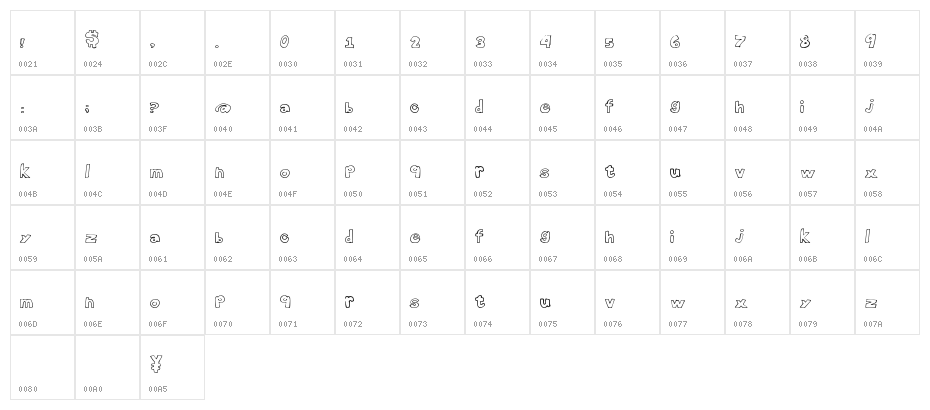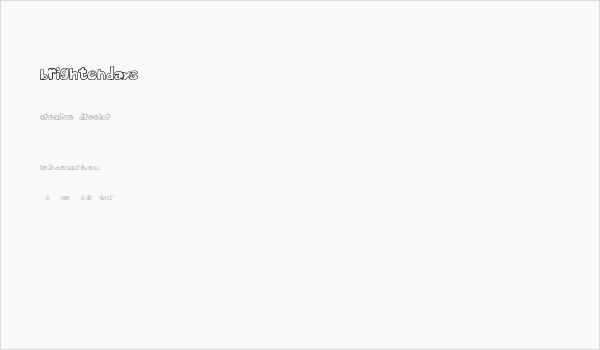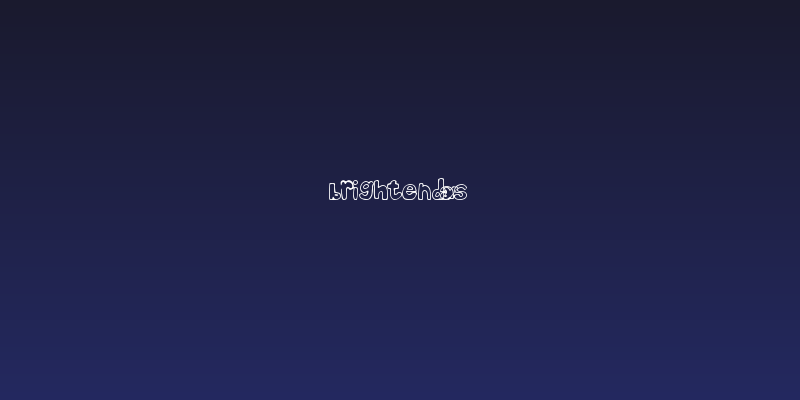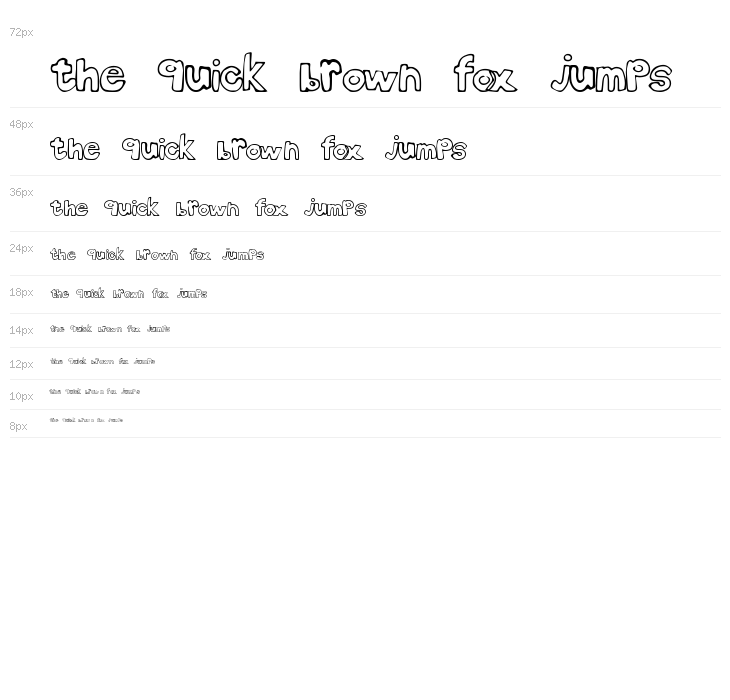
BrightenDays Font
This playful and whimsical font features bold, rounded characters with a hand-drawn appearance. The letters are outlined, giving them a cartoonish and fun vibe, perfect for projects that require a light-hearted and informal touch. The font includes both uppercase and lowercase letters, numbers, and a selection of special characters. Its unique style is characterized by a consistent stroke width and a slightly irregular shape, adding to its charm and approachability. The font's design is ideal for capturing attention and conveying a sense of joy and creativity.
| Overall Style | Playful, Whimsical |
| Proposed Projects | Ideal for children's books, playful branding, party invitations, and creative posters. |